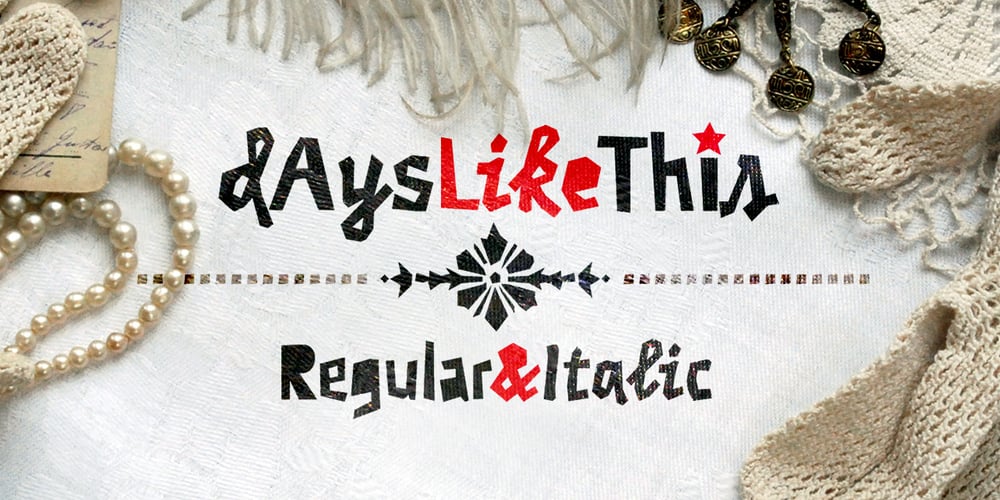
Days Like This Font Family was designed by Dragan Pešić, Ana Pešić and published by Pesic. Days Like This contains 2 styles and family package options. This font is inspired by Van Morrison’s song named “Days like this”. Contains all Latin glyphs and more than 400 characters with ornaments. It is decorative, very modern and useful for logos, T-shirt designs, packaging design, posters, billboards, magazines, covers, etc. Contains regular and italic.